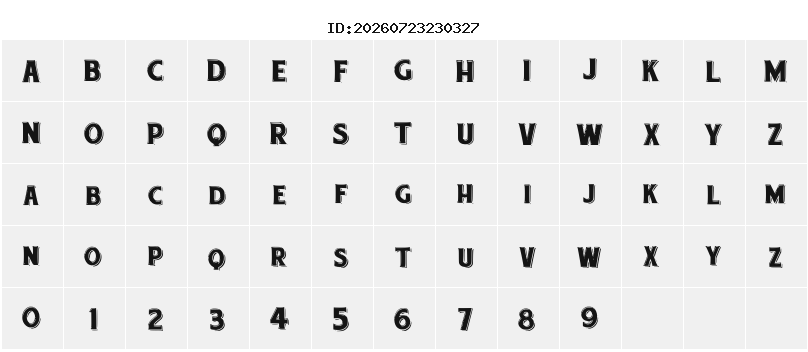
etiquette Preview
• Font Name: etiquette
• Full Font Name: etiquette
• PostScript Name: etiquette
About etiquette.otf
etiquette.otf is a modern, elegant sans-serif font designed for ultimate readability and visual harmony. Perfect for branding, headlines, web design, and print materials.